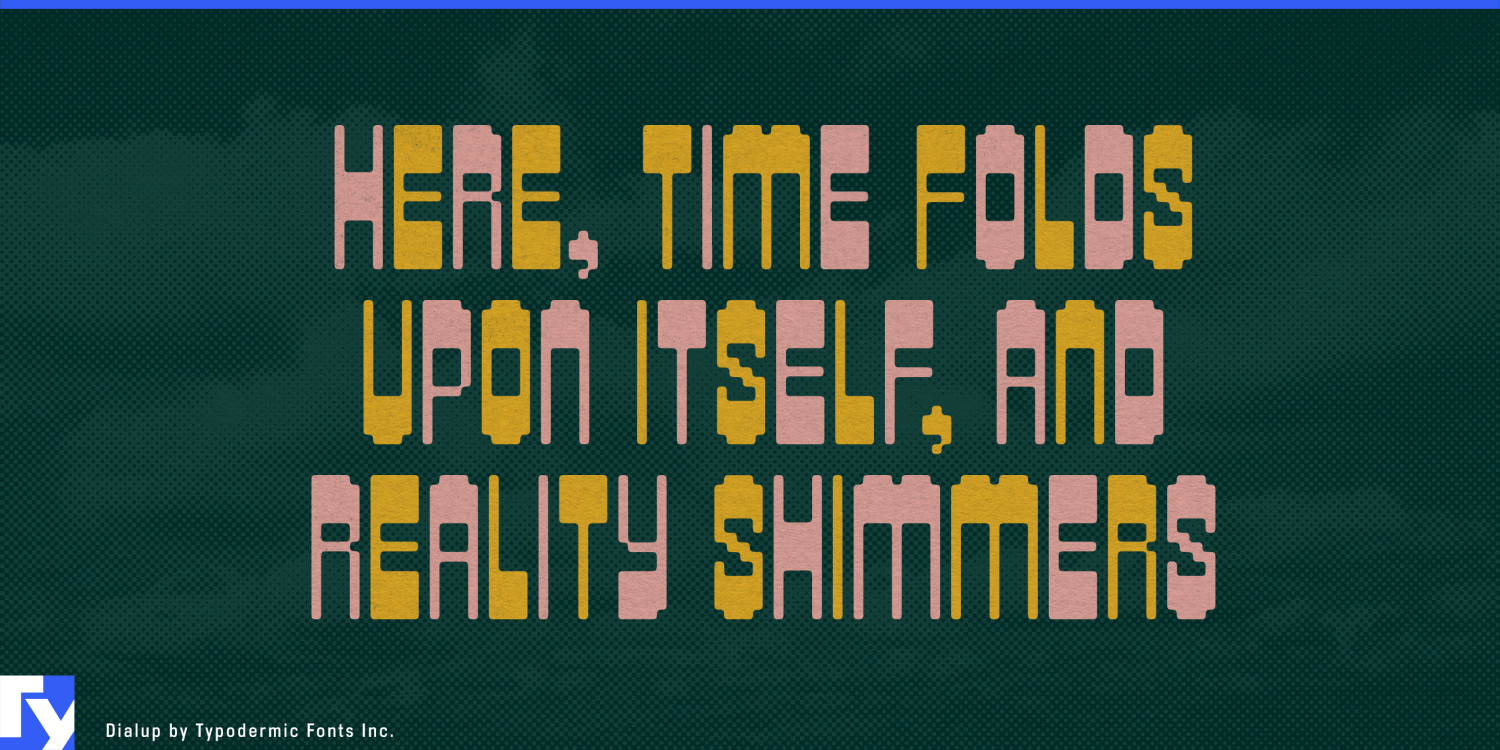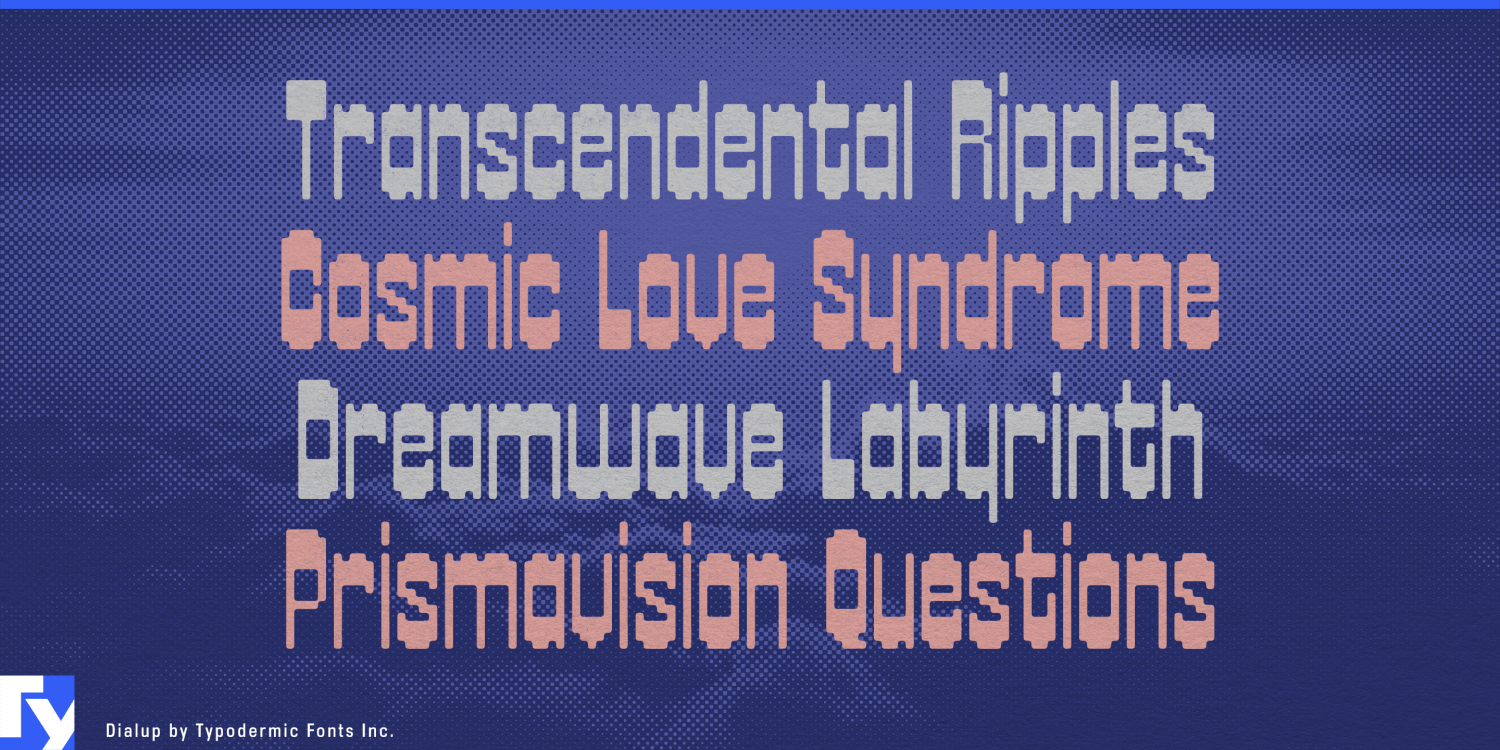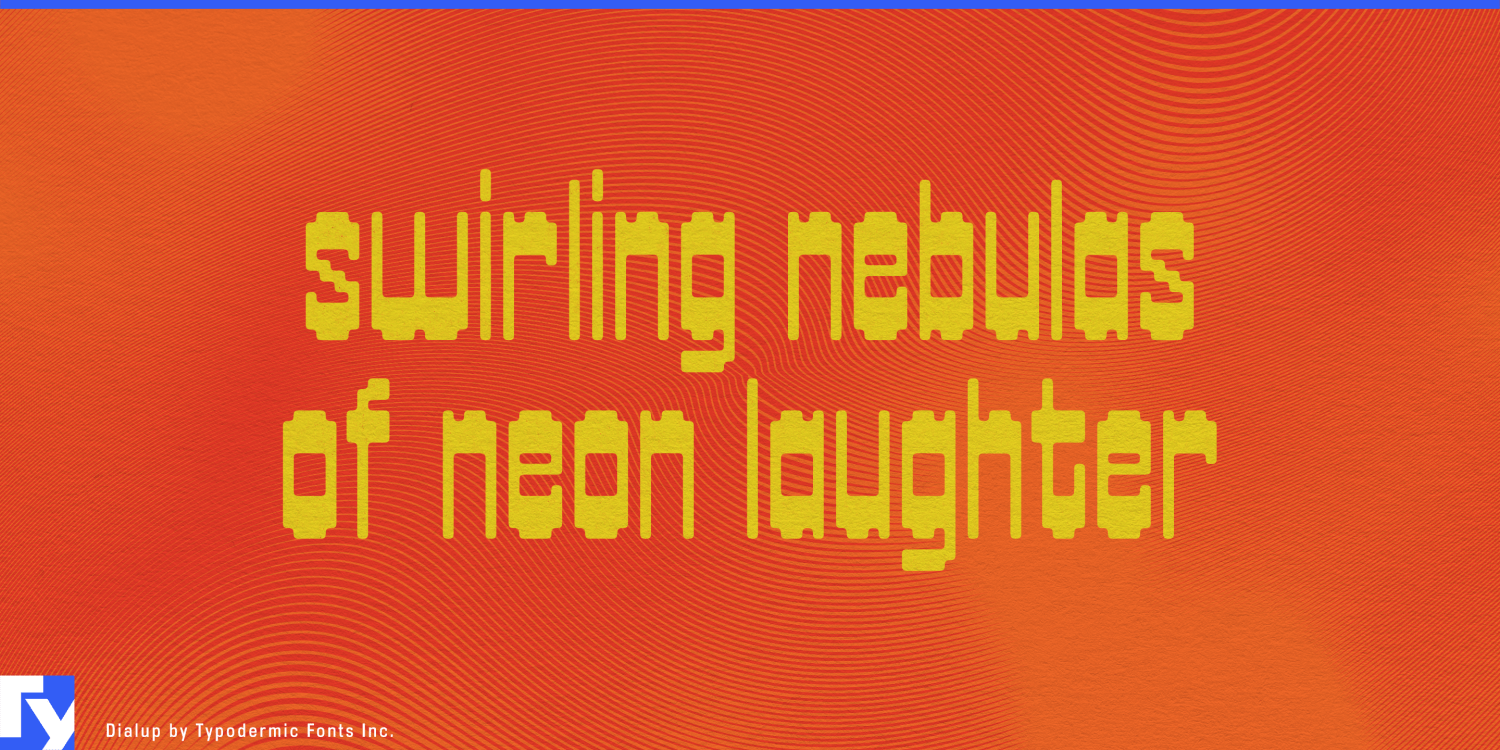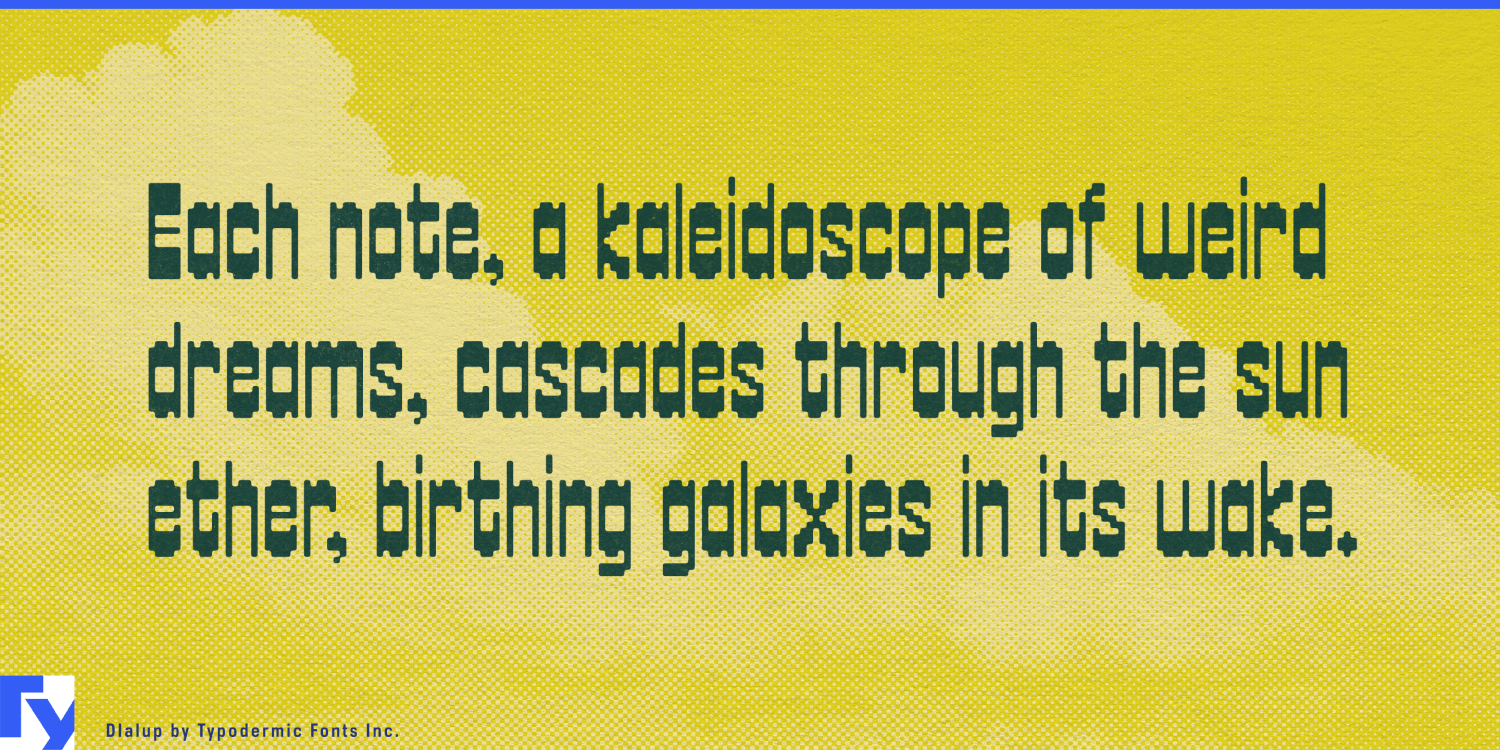
About Dialup
Dialup: The typeface that struts down the runway of time, blending ’70s psychedelia with ’80s digital chic. This Typodermic Fonts creation isn’t just a font—it’s a fashion statement, a time machine, and a design revolution…